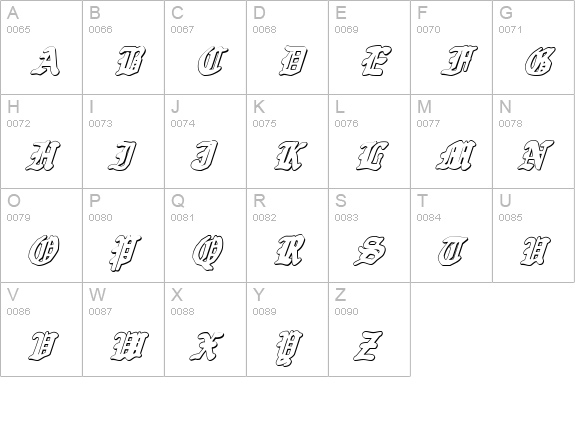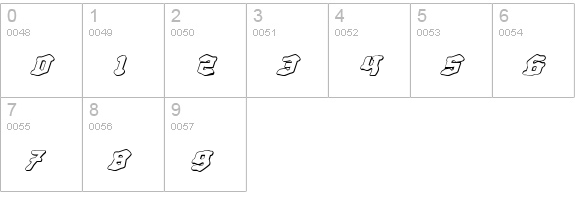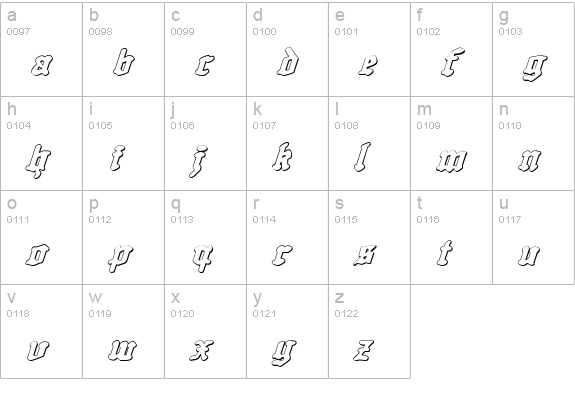
Quest Knight 3D Italic is a distinctive, italic variant in the Quest typeface family \xE2\x80\x94 well suited to design and typography projects.
Embark on a grand typographic adventure with Quest Knight 3D Italic font! This bold and dynamic typeface is designed to capture the essence of medieval quests and epic tales. With its sharp angles and intricate details, Quest Knight 3D Italic font exudes a sense of bravery and valor. Whether you're designing a fantasy novel cover or creating a mystical poster, this font will add a touch of magic to your project. Best of all, Quest Knight 3D Italic font is available for free download at FontsMarket.com. Don't miss out on the opportunity to unleash the power of this captivating font in your designs. Download Quest Knight 3D Italic today and embark on a journey to typographic greatness!